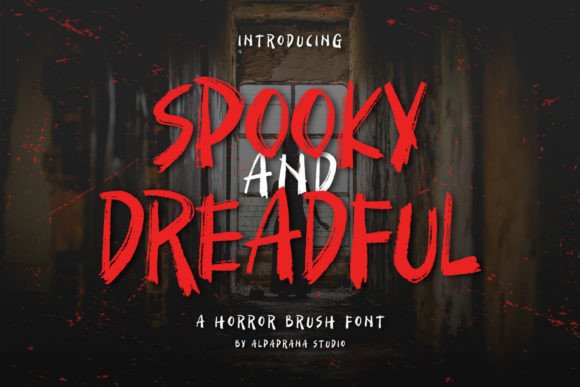
Feel the eerie charm of Spooky and Dreadful, a brush font born from the depths of creativity. Immerse yourself in its unique horror-infused aura, meticulously crafted to bring a touch of the supernatural to your designs. Each stroke is a bewitching dance, captivating and enchanting. Enter the realm of the macabre, where Spooky and Dreadful reigns supreme.
Unleash your artistry with this mesmerizing script font, a true masterpiece that captivates with its elegance and intrigue. Picture your words adorned in its haunting beauty, weaving tales of mystery and the unknown. Allow the curves and lines to guide you into the shadowy depths of your imagination. As you create, feel the pulse of creativity quicken, as if the very essence of the supernatural guides your hand.
With Spooky and Dreadful, your designs will transcend the ordinary, taking on a life of their own. Elevate your branding, logo design, lettering, logotype, clothing, posters, magazines, and more. This font is a passport to a world where fear and beauty intertwine, where darkness unveils the hidden treasures of the soul.
Embrace the thrill of Halloween with Spooky and Dreadful. Let your designs evoke the spine-chilling excitement of haunted houses and eerie tales. Create invitations that whisper secrets, posters that scream with mystery, and logos that leave an indelible mark on the minds of all who behold them. This font is the perfect companion for those who dare to explore the unknown, to dance on the precipice of light and shadow.
Spooky and Dreadful is not just a font; it's a captivating journey into the realm of the macabre. Experience the thrill of creating designs that haunt the imagination, designs that leave an echo in the corridors of the mind. With this font, your creative potential knows no bounds. Enter the world of Spooky and Dreadful and let your designs take on a life of their own.